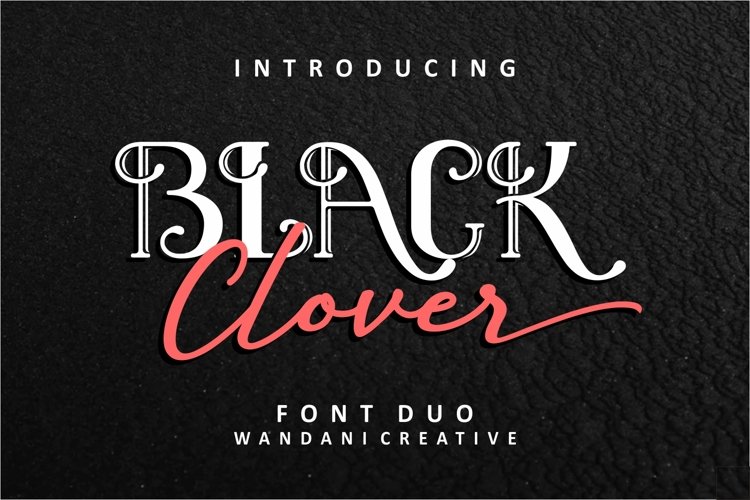
Black Clover Font Duo
Inspired by the new modern vintage style, with script and Display combination. Come with a fresh lowercase, uppercase, numerals, ligatures, stylistic alternate, multilingual, etc.
This font is perfect for your vintage logo, badges, shirts, labels, apparel design, Branding, etc.